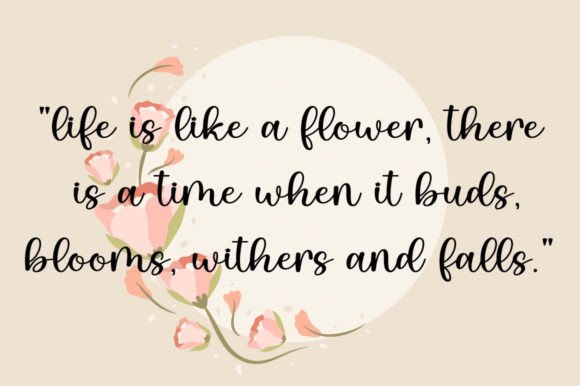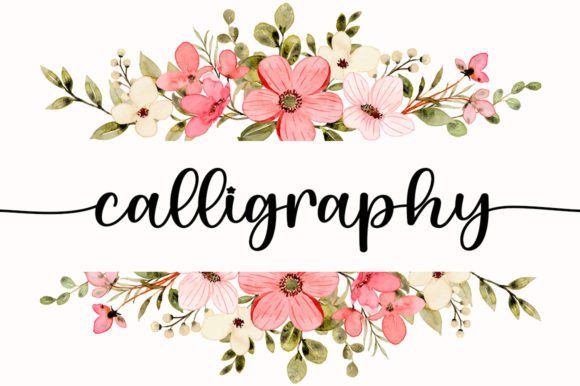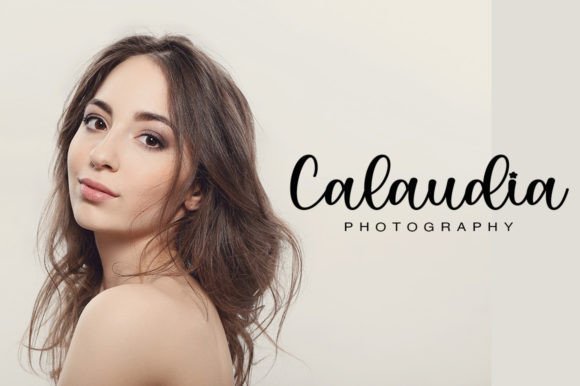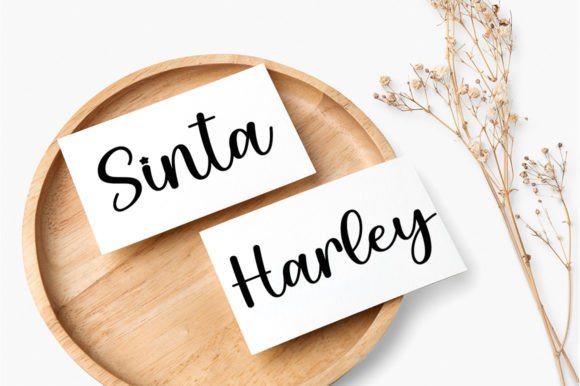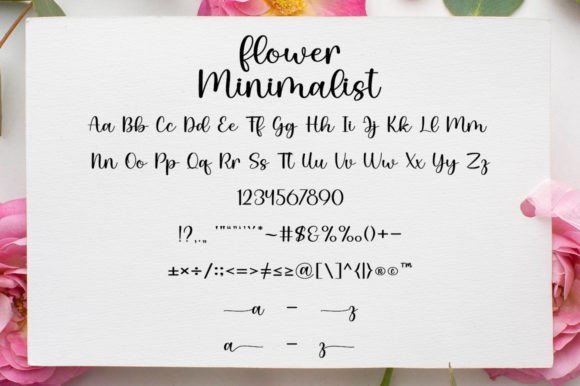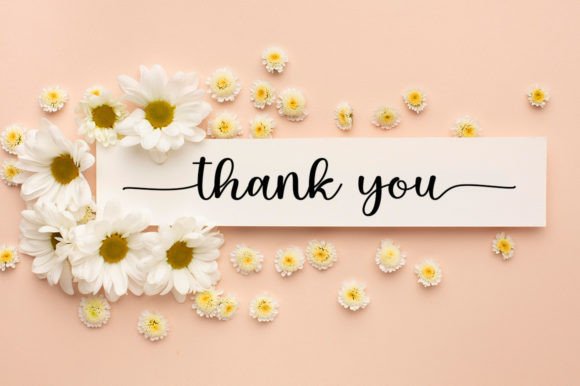
The Charm of Flower Minimalist Font: A Designer’s Delight
Have you ever been in the middle of a design project, and suddenly, you’re stuck on finding the perfect font? I recall a particularly stressful experience when a client requested a custom wedding invitation design, and I was determined to find a font that would make it truly special. That’s when I stumbled upon the Flower Minimalist Font, and it instantly became my go-to choice. In this article, I’ll share my experience with this beautiful font, its features, and how to make the most of it in your designs.
A Personal Review: What I Love and What to Consider
- 💕 Elegant and Charming: Flower Minimalist is equally charming and elegant, making it perfect for designs that require a touch of sophistication.
- 🎉 Versatile: It looks stunning on wedding invitations, thank you cards, quotes, greeting cards, logos, business cards, and every other design which needs a handwritten touch.
- 🔍 PUA Encoded: This font is PUA encoded, which means you can access all of the glyphs and swashes with ease!
- 👍 Easy to Use: The font is user-friendly, and you can easily navigate its features, even if you’re not a seasoned designer.
- ⚠️ Limited Availability of Certain Glyphs: Some users have reported that certain glyphs or swashes may not be readily available in all software or platforms.
- ⚠️ Requires OpenType Features: To access all the features of Flower Minimalist, you’ll need to use software that supports OpenType features.
The Story Behind Flower Minimalist
While the true story behind Flower Minimalist remains a mystery, it’s clear that the designer was inspired by the beauty of handwritten scripts. The font’s elegant and charming feel makes it perfect for designs that require a touch of sophistication. Whether you’re a designer, crafter, or creative hobbyist, Flower Minimalist is sure to become a favorite in your collection.
Q: What is PUA encoding, and how does it benefit the user?
PUA (Private Use Area) encoding allows users to access a wide range of glyphs and swashes, making it easier to customize and personalize their designs.